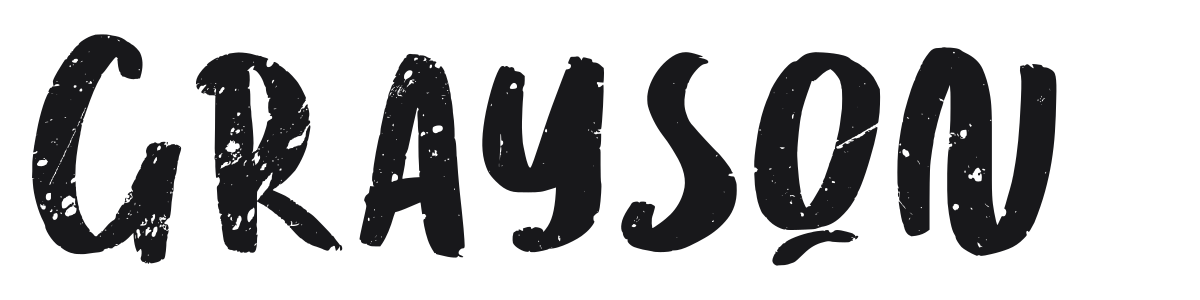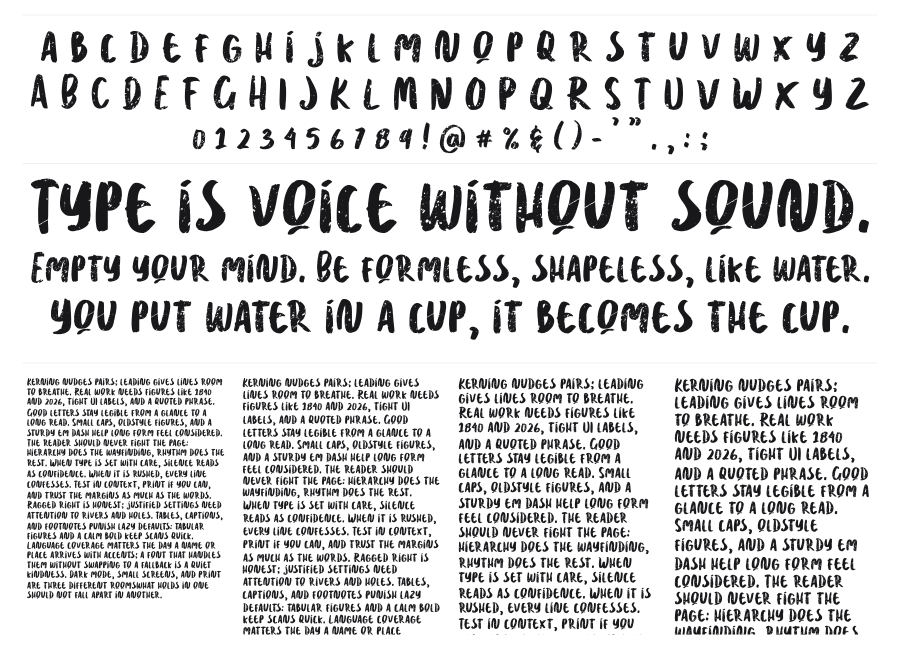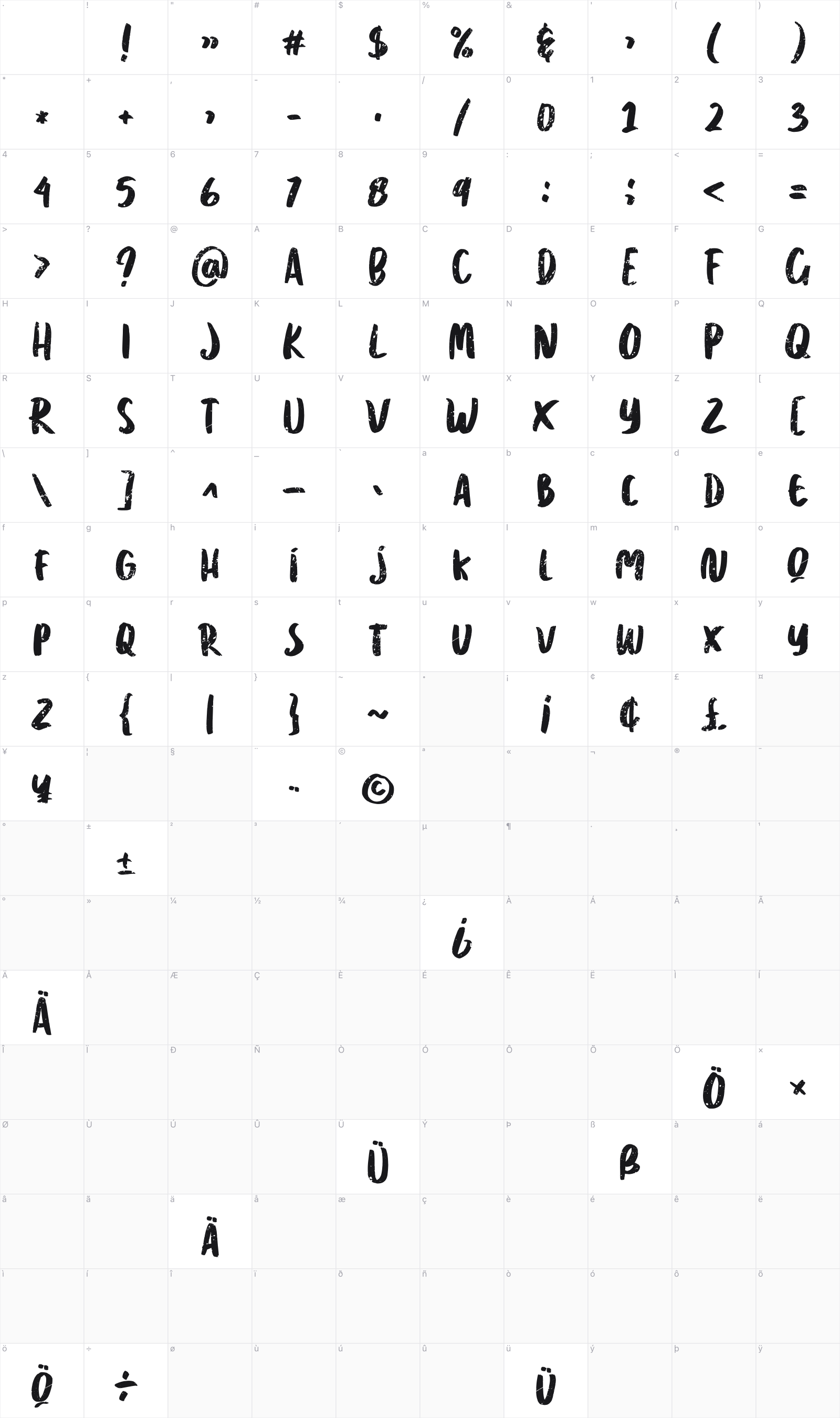
Grayson
Grayson is a bold brush script with heavy ink texture and a raw, hand-painted energy. Every character carries visible bristle marks and irregular edges that make it feel genuinely made by hand rather than digitally simulated. It thrives at large sizes where the texture and personality can breathe.